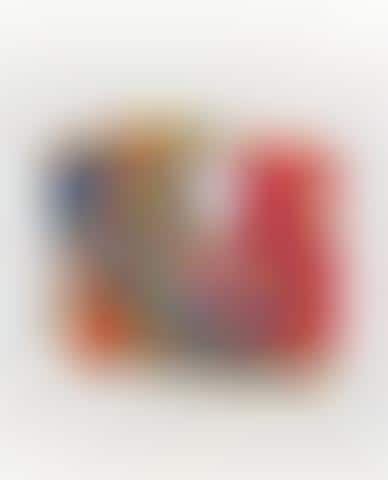
'Eclecto Type Treasures' by UPPERCASE are super fun grab-bags for font fanatics. The shop owners have collected thousands of bits of vintage food labels, postcards, sign letters, playing cards, and antique papers.
Goodie Bags for Font Fans
‘Eclecto Type Treasures' by UPPERCASE